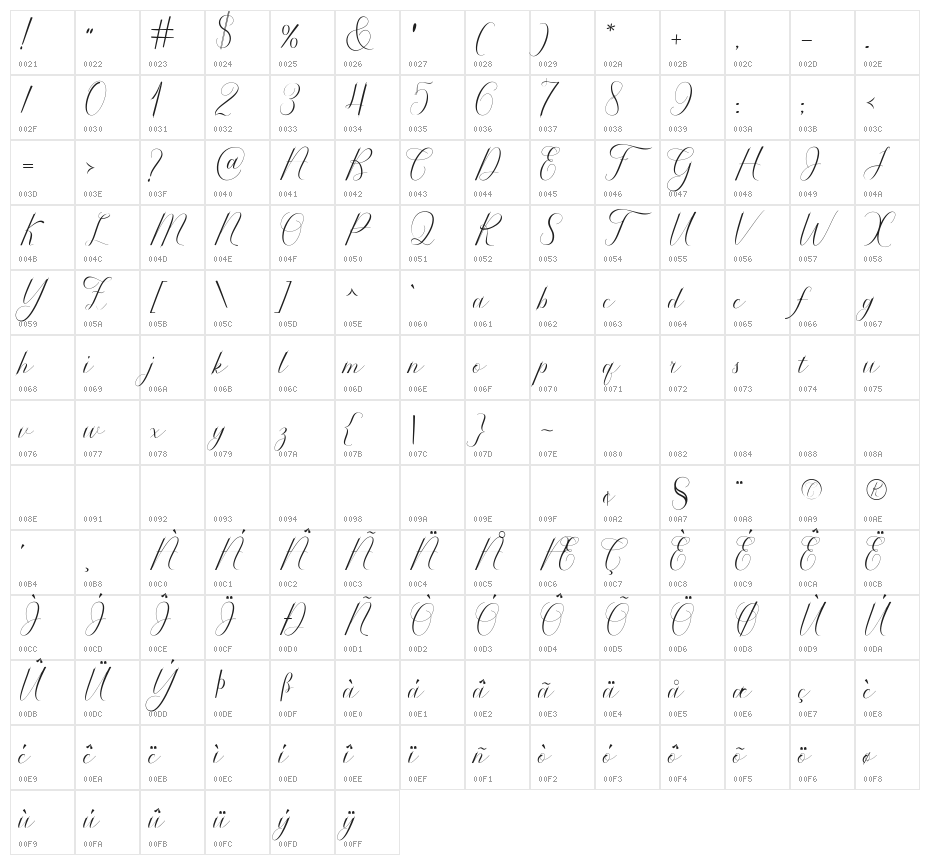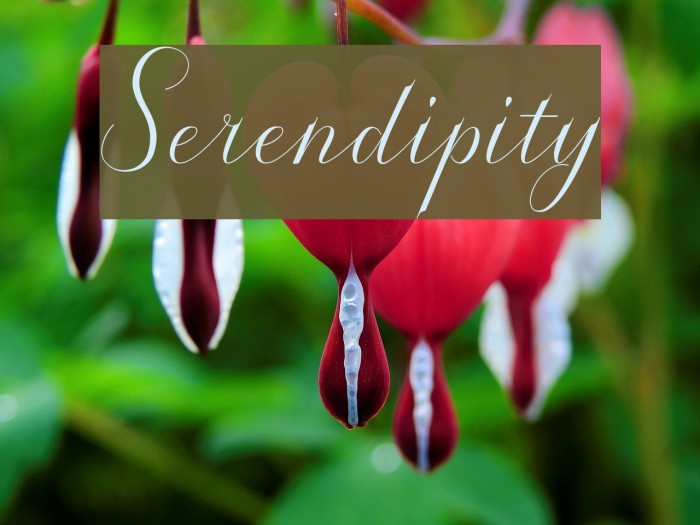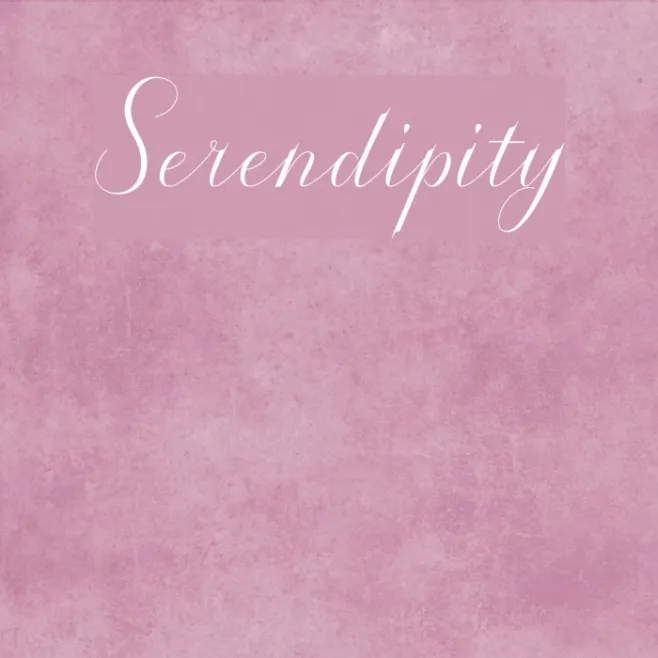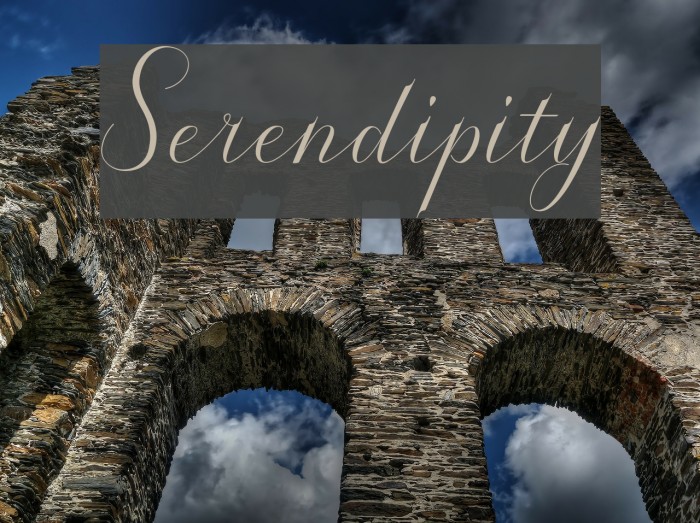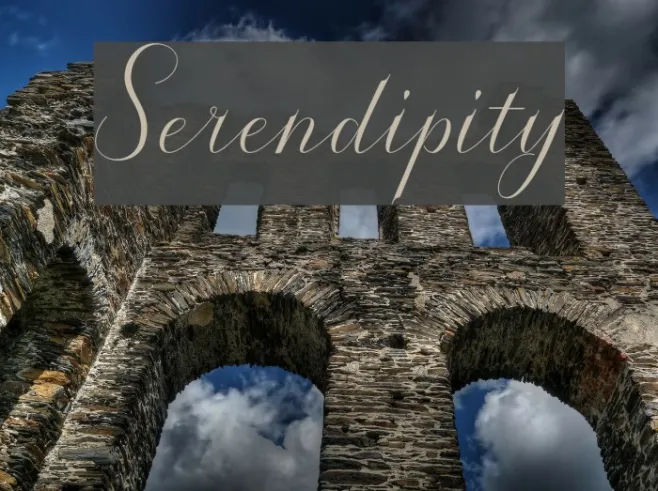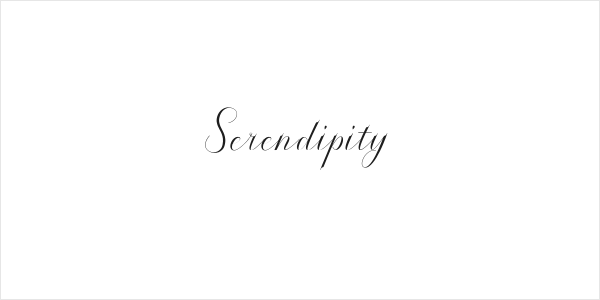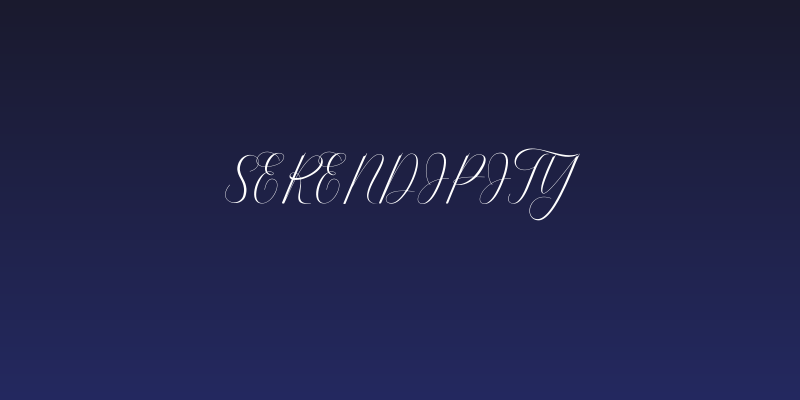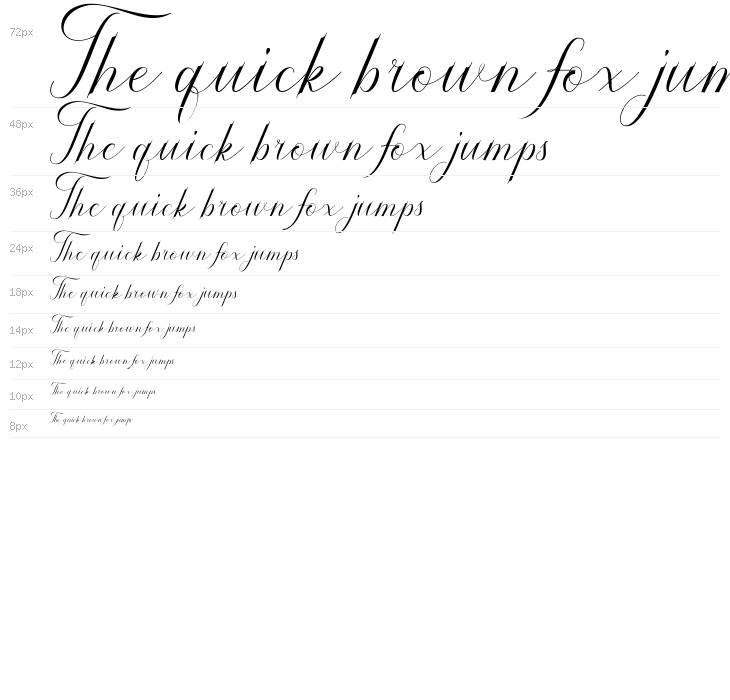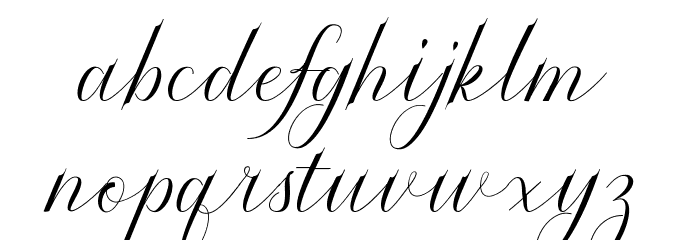
Serendipity Font
Serendipity Description
This elegant script font features flowing, interconnected letters with a refined and sophisticated appearance. The uppercase letters are tall and graceful, with sweeping curves and delicate loops that give a sense of movement and fluidity. The lowercase letters maintain this fluidity, with gentle slopes and smooth transitions between strokes. The numerals are consistent with the overall style, featuring similar curves and a slightly elongated form. Special characters are designed to complement the script, adding a touch of elegance to punctuation and symbols. The font's thin strokes and high contrast between thick and thin lines enhance its delicate and stylish look, making it ideal for formal invitations, branding, and elegant design projects.
| Use Case | Headlines, Invitations, Branding |
| Proposed Projects | Ideal for wedding invitations, luxury branding, elegant stationery, and sophisticated logo designs. |